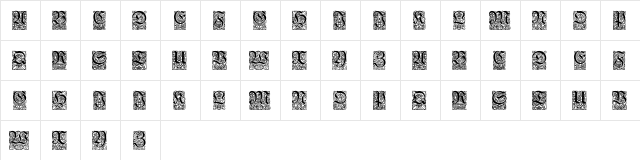
Unger-Fraktur Zierbuchstaben Regular
| Designer | Dieter Steffmann |
Design Context for Unger-Fraktur Zierbuchstaben Typeface
Unger-Fraktur Zierbuchstaben channels the dramatic heritage of Fraktur and Gothic scripts, bringing a sense of historical gravitas to any design.
Well-suited to band logos, craft beer branding, tattoo lettering, and heritage-themed identities.
Font Pairing: Pair with a clean neutral sans-serif for body copy to let Unger-Fraktur Zierbuchstaben's character lead without overwhelming the composition.
Pro Tip: Use Unger-Fraktur Zierbuchstaben sparingly at large sizes. Even a single word set in blackletter can define the visual register of an entire design.